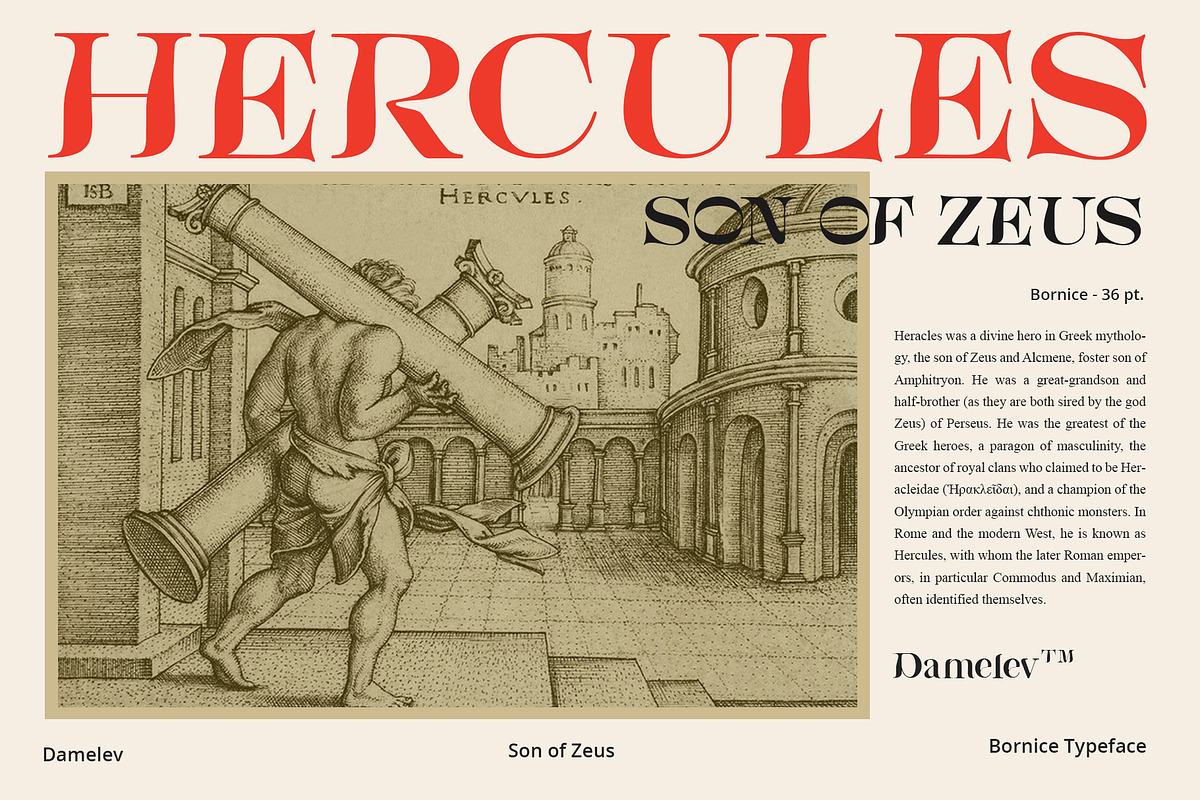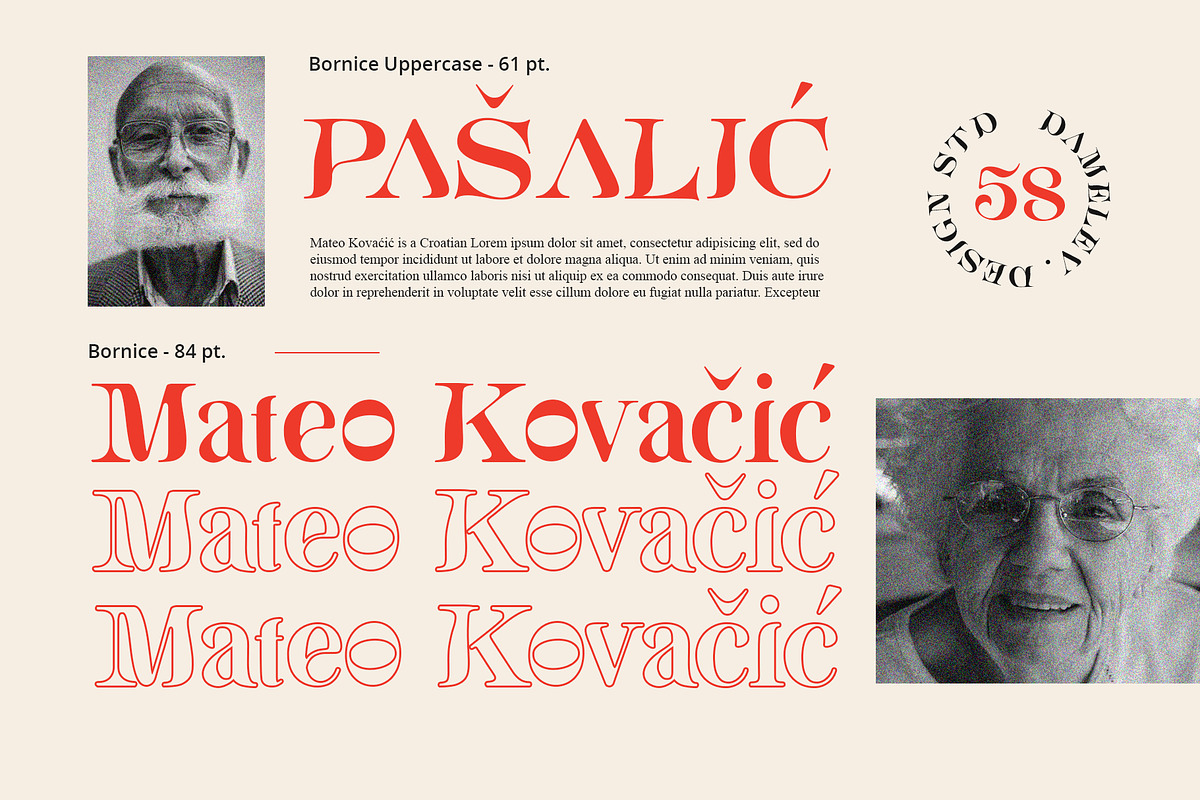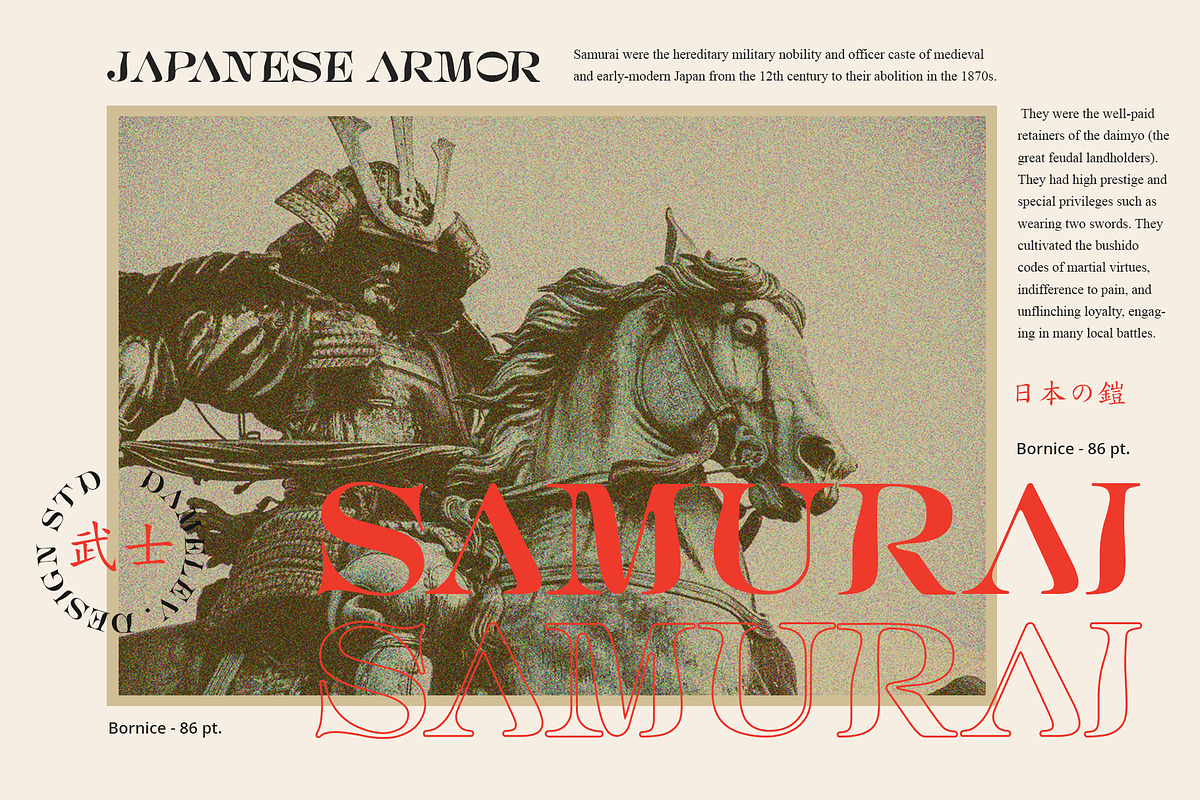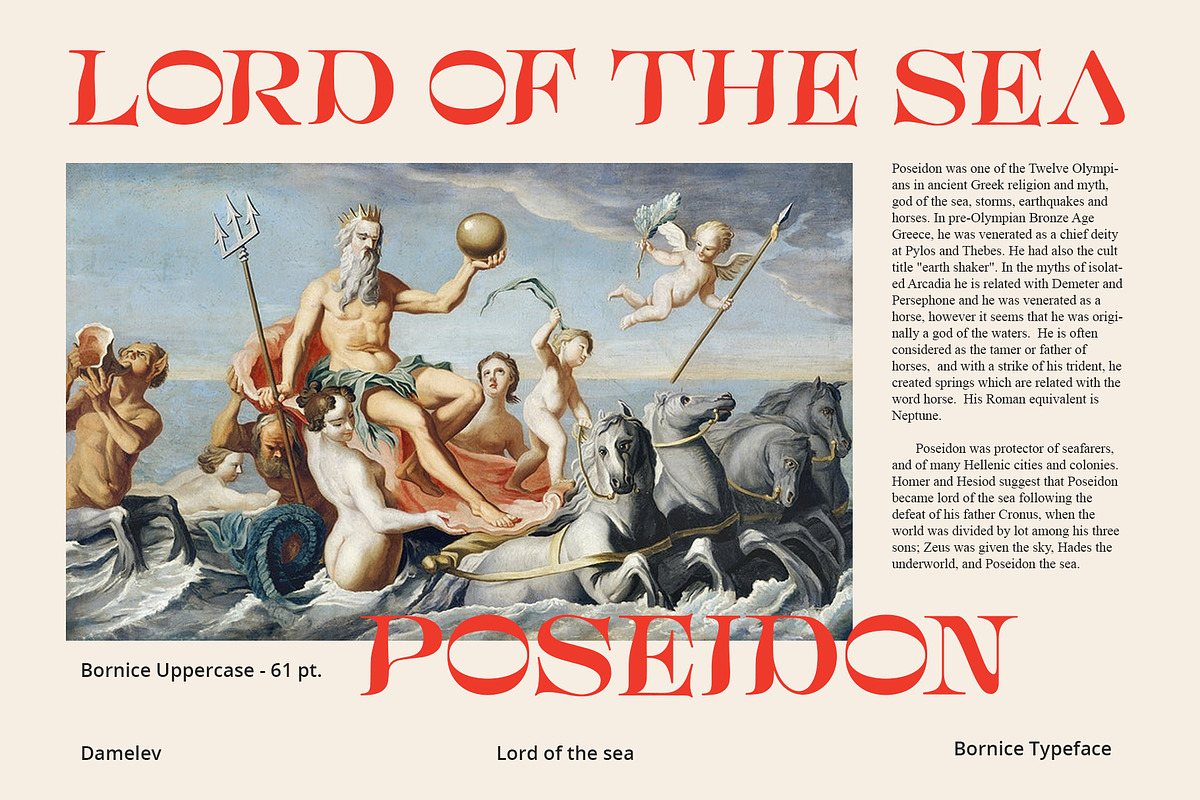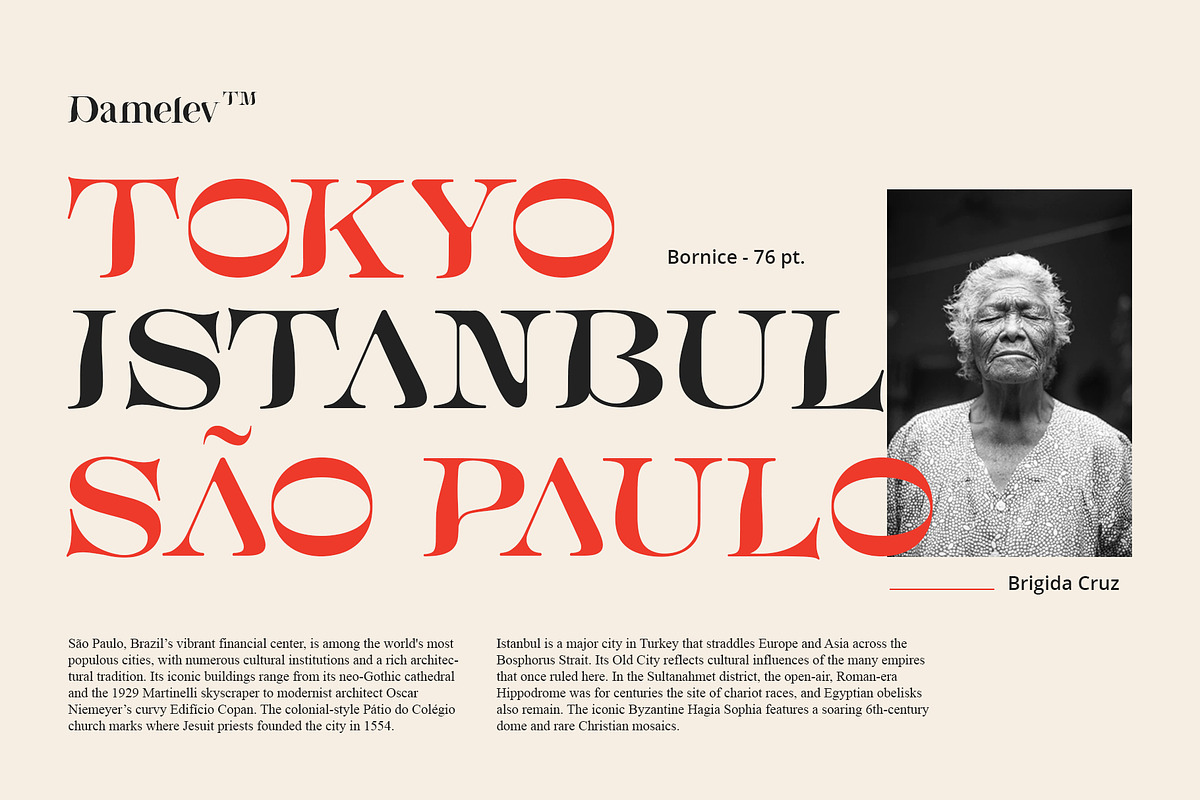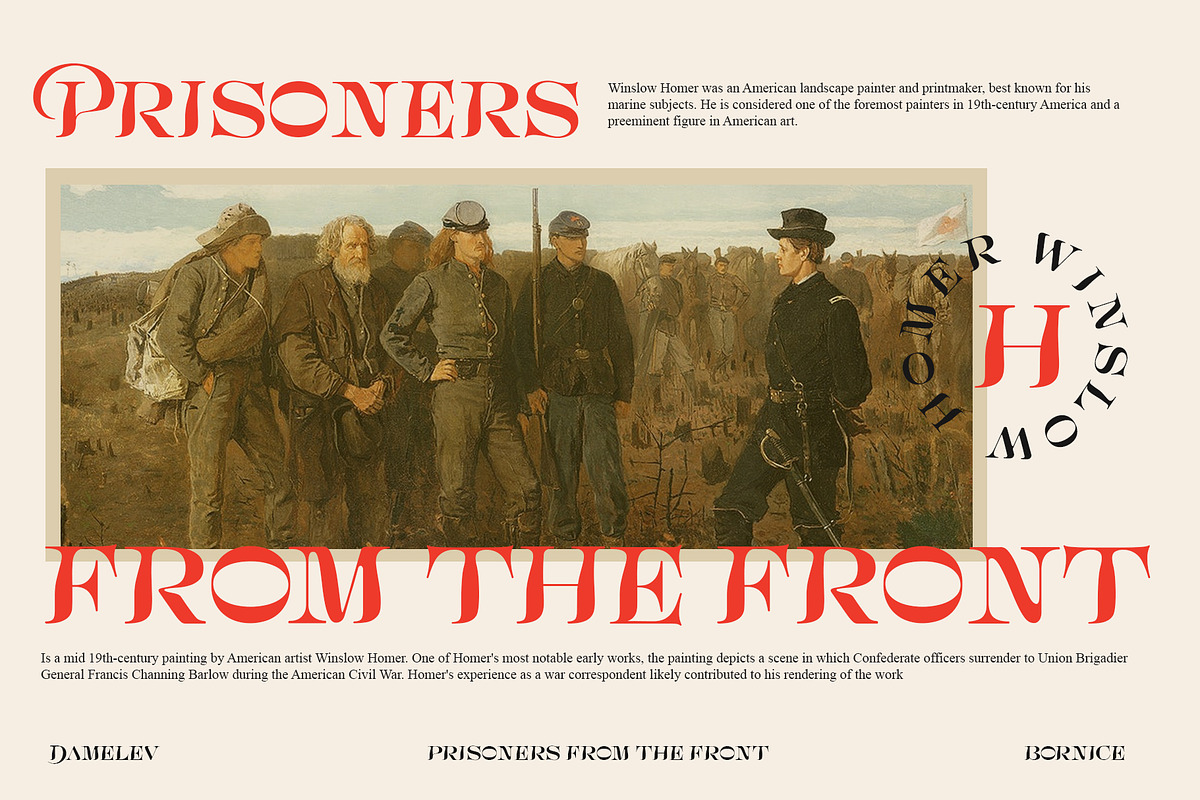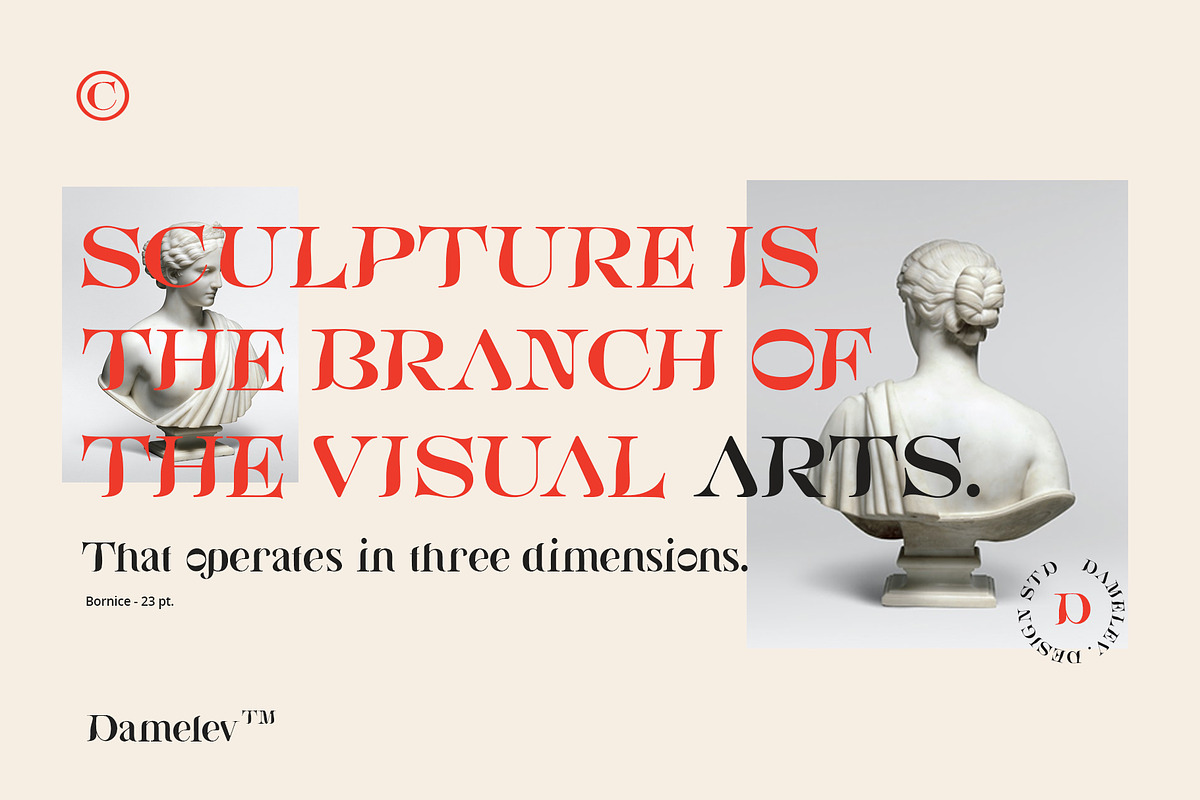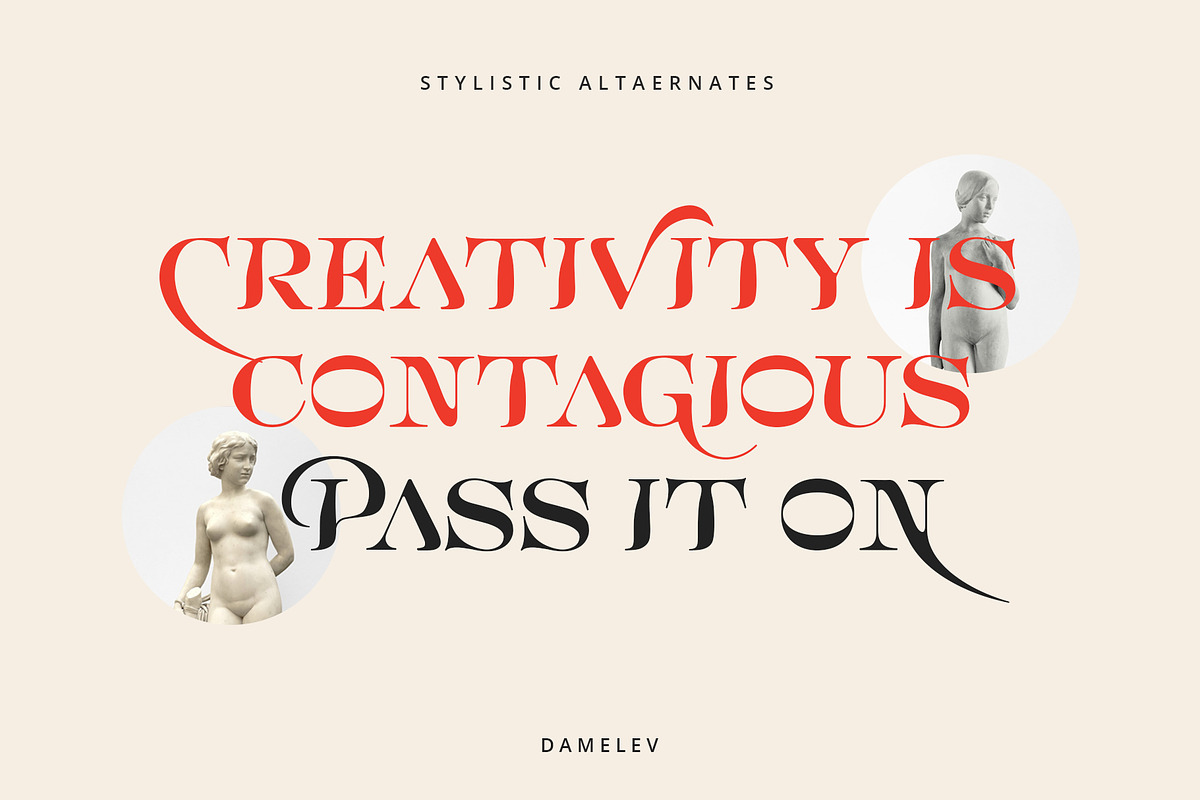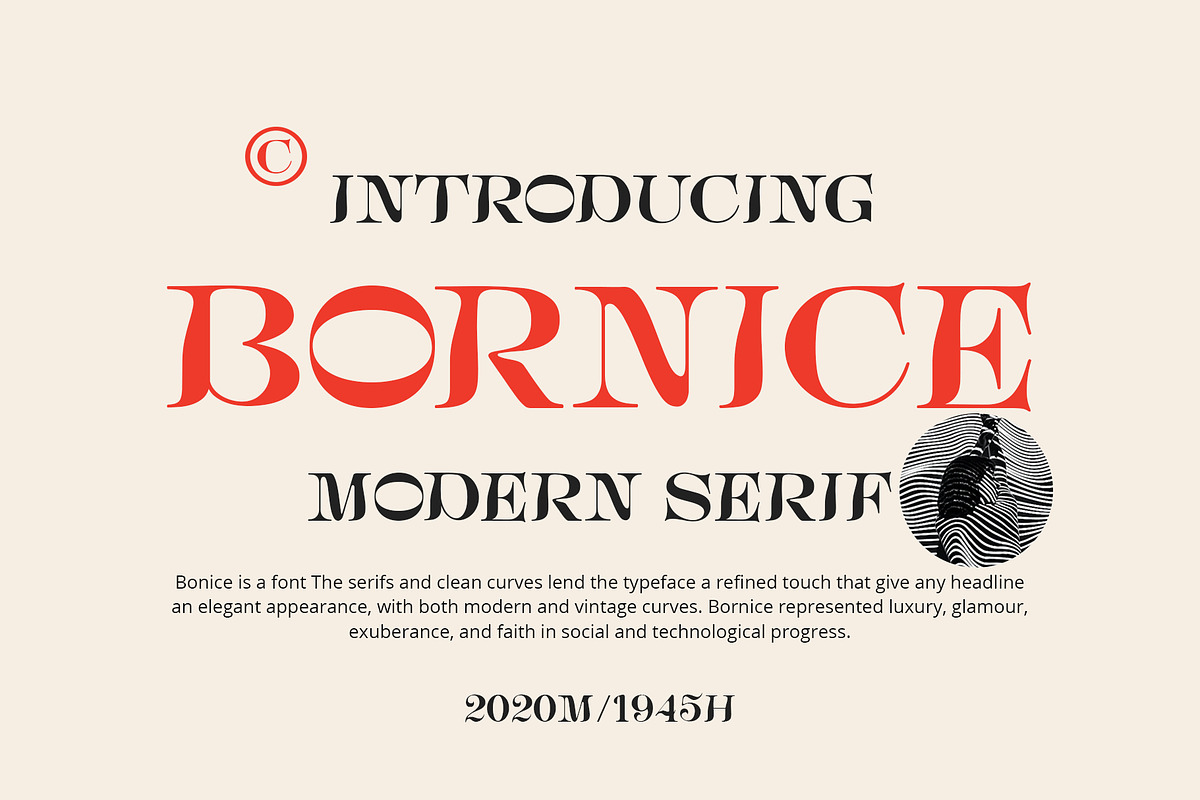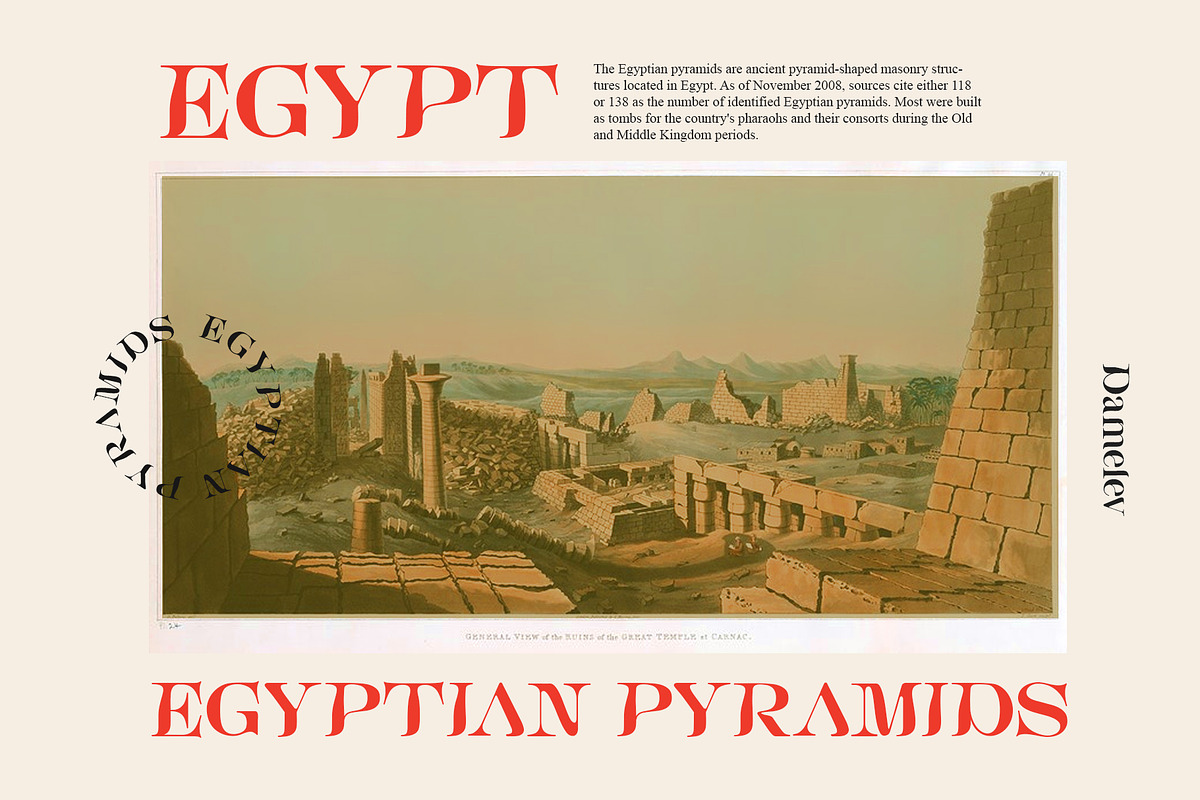
Bornice Modern Serif
Bornice is a modern serif, typeface a refined touch that give any headline an elegant appearance, with both modern and vintage curves. Bornice represented luxury, glamour, exuberance, and faith in social and technological progress and support multilingual.
It works perfectly for creative project such as logo, T-shirt / apparel, badge, invitation, packaging,headline, poster, magazine, greeting card, and wedding invitation. You can access the open type features and multilingual on mostly Adobe programs, such as Adobe Indesign, Adobe Illustrator, Adobe photoshop. etc.